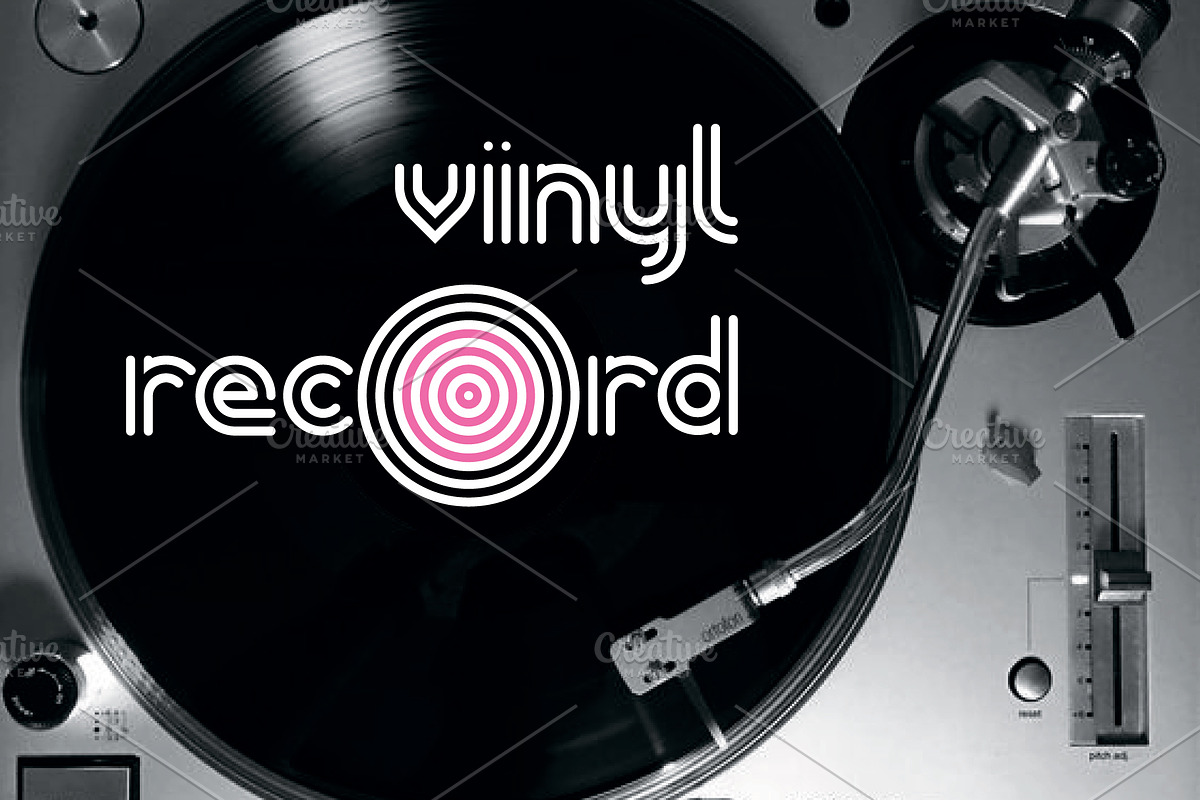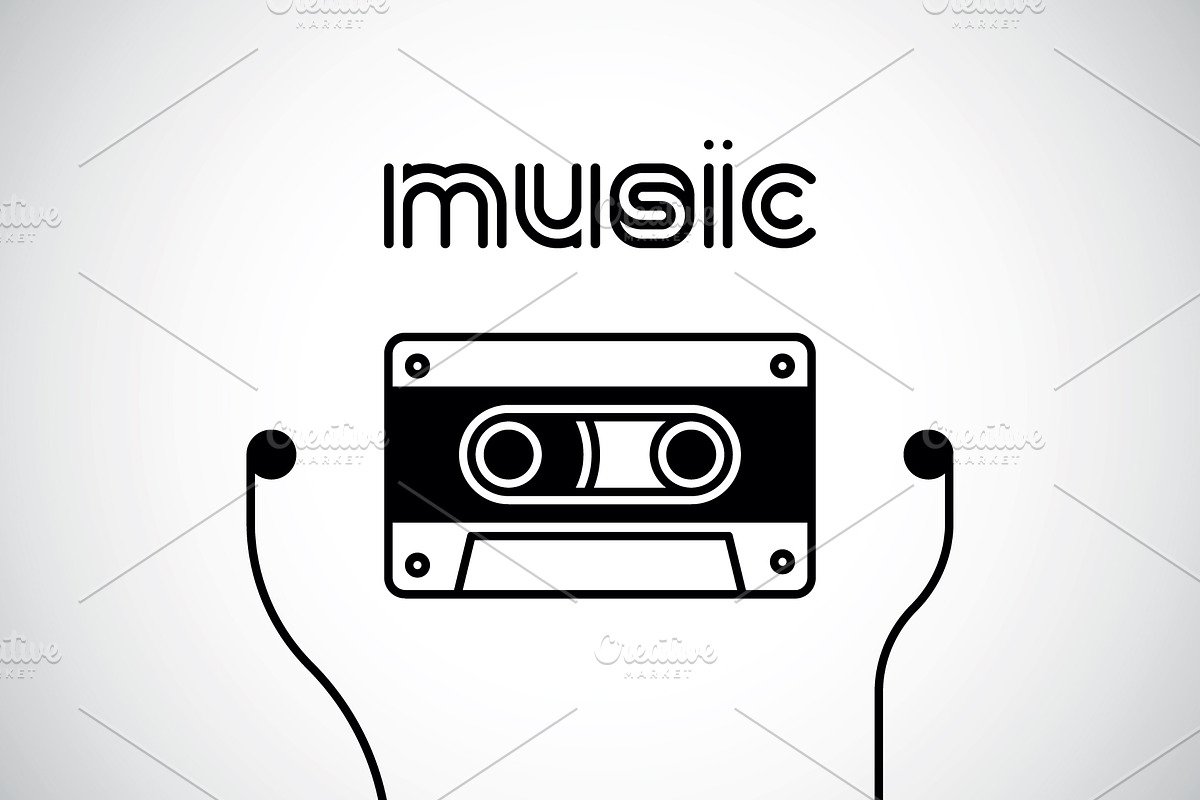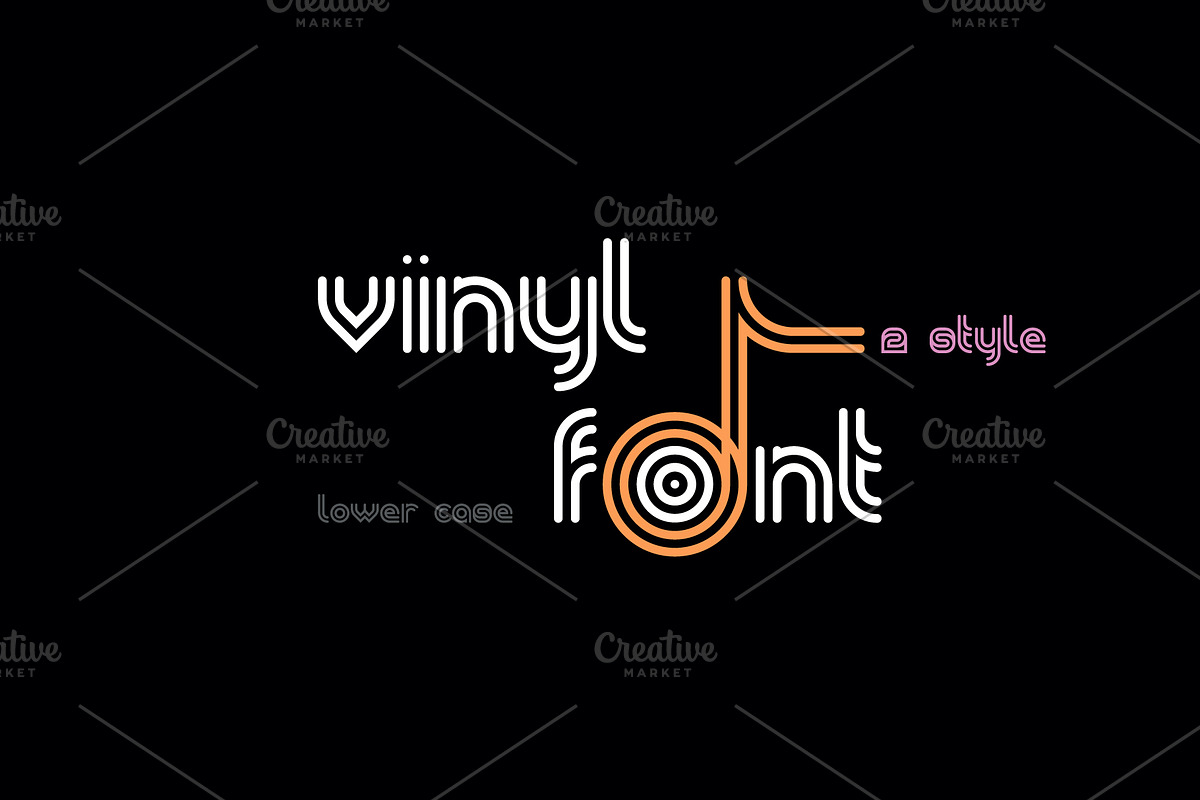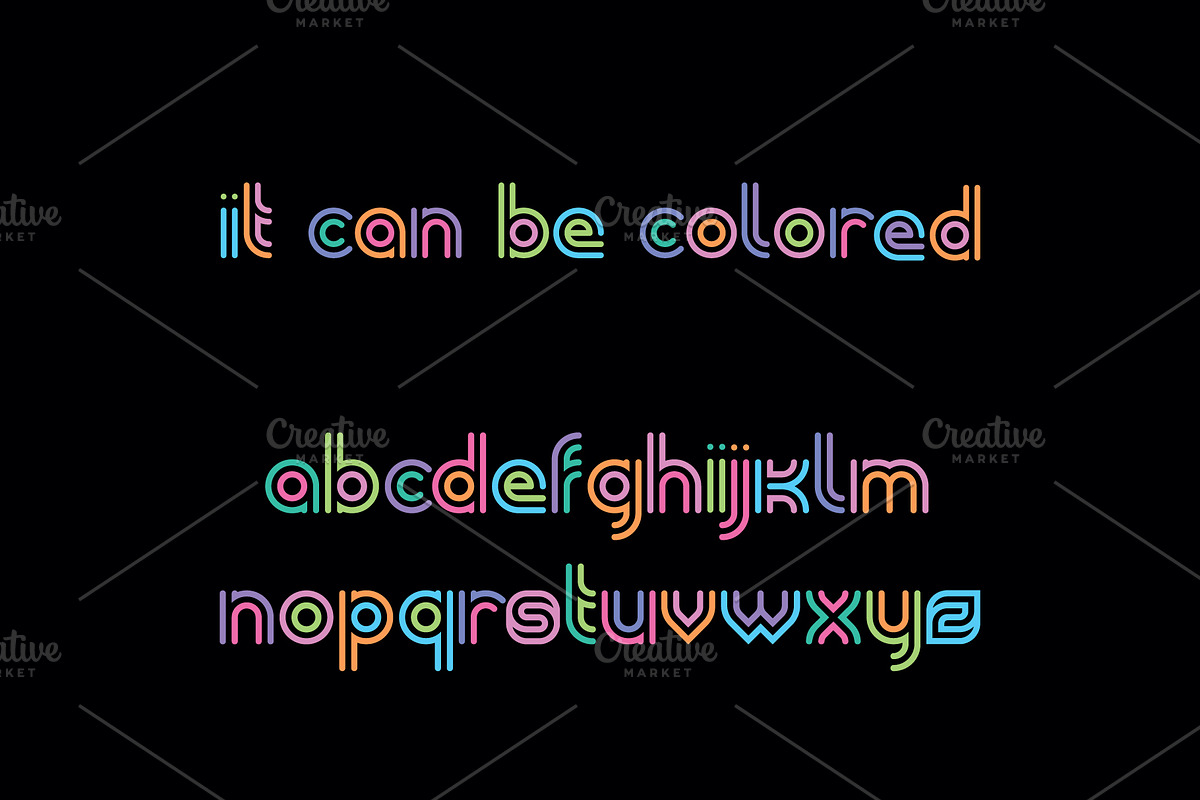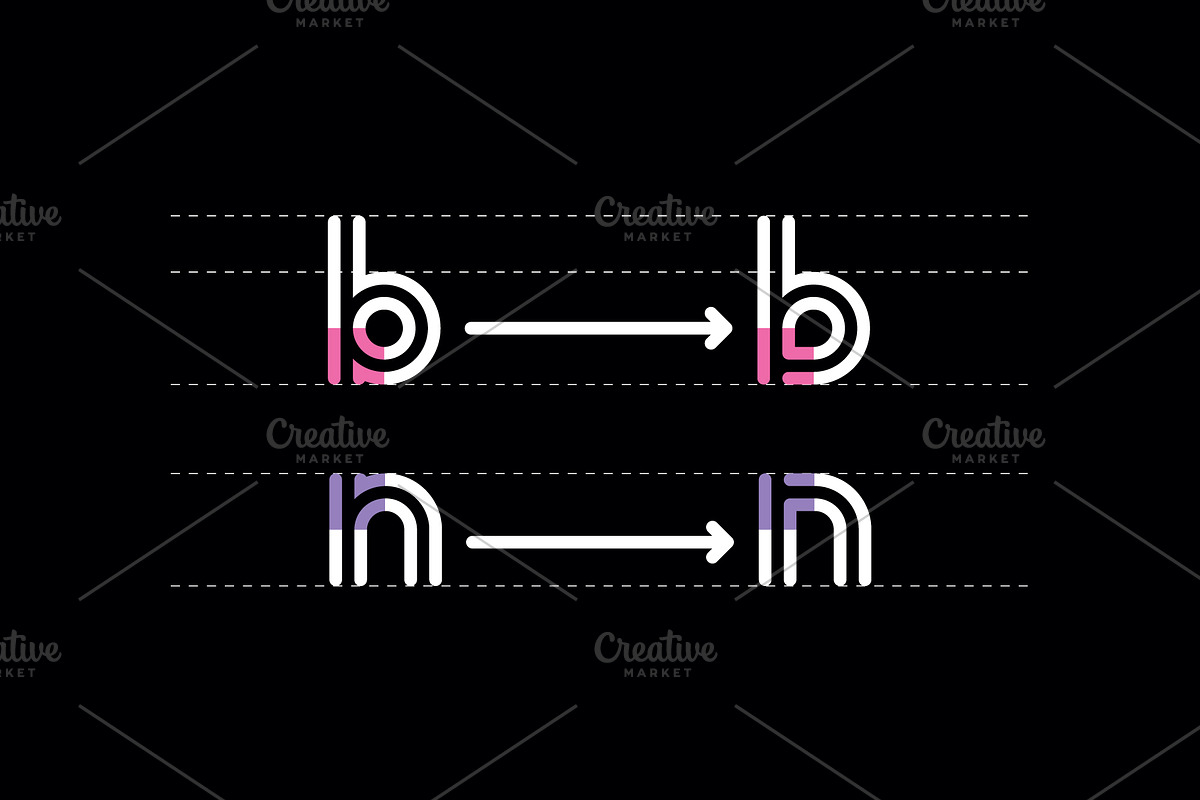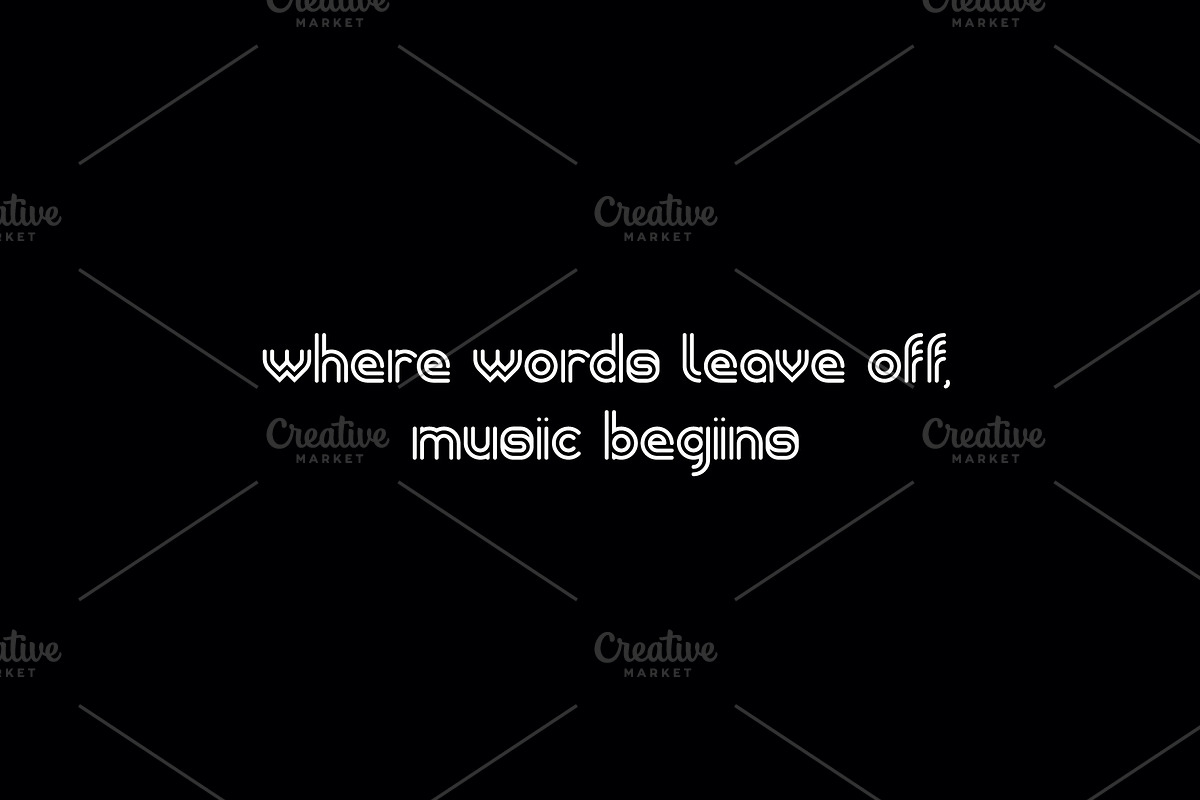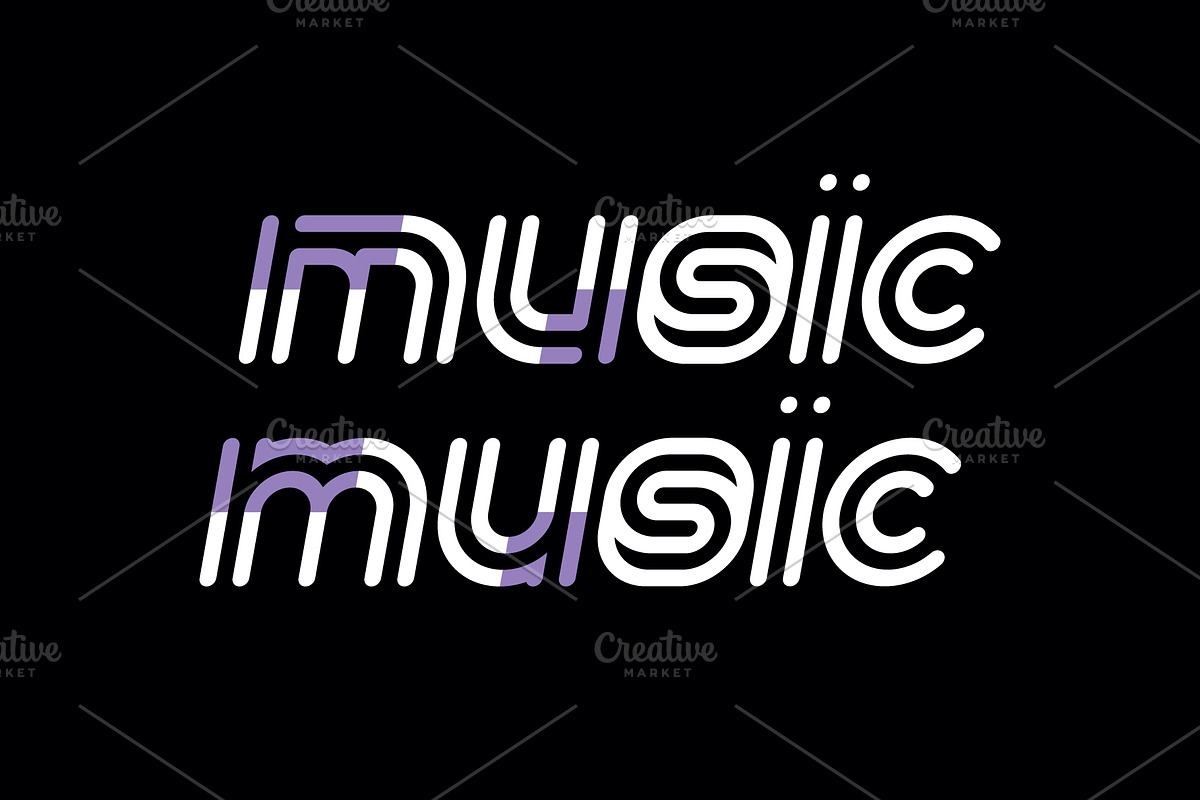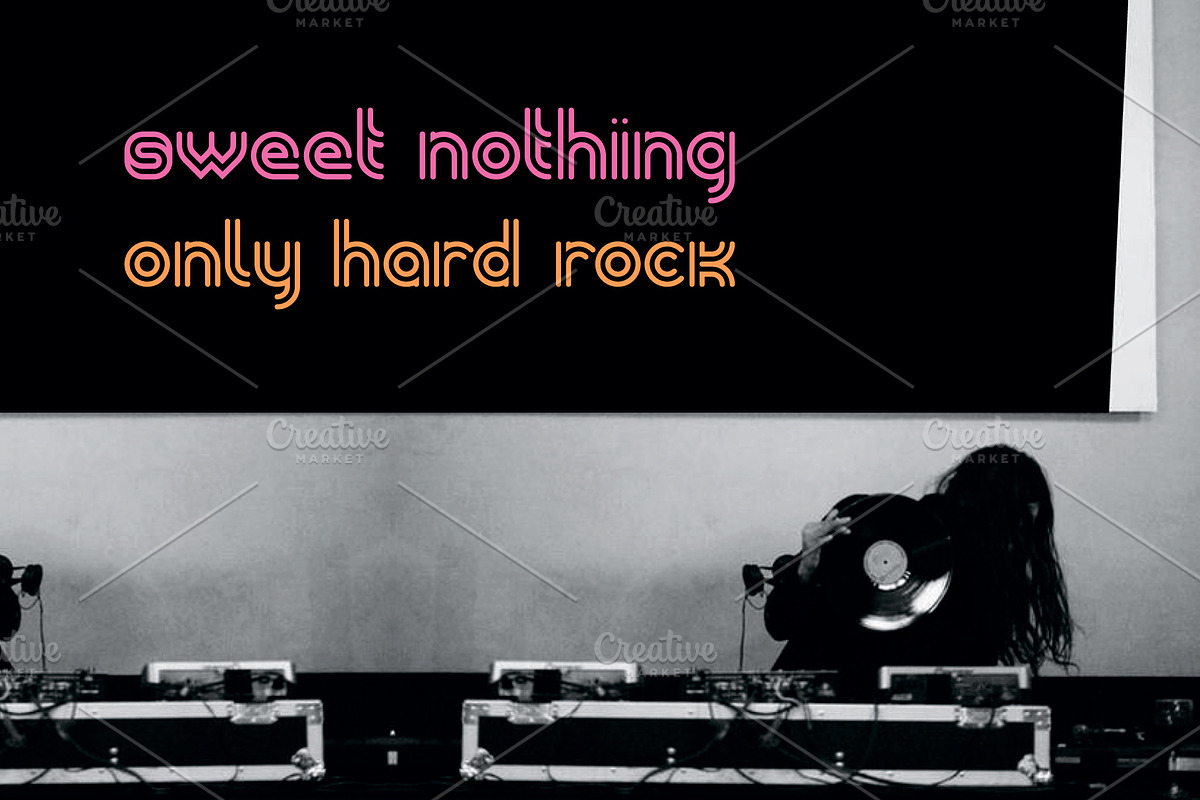
VinylFont
Hi, friends! This is my new font Vinyl. I think it's perfect, clear and beautiful. This is a font lower case!
The font is suitable for creating wordmarks, titles, taglines. And of course for logos!
The font includes 2 versions: Regular (round) and Corner. There is OTF and vector.